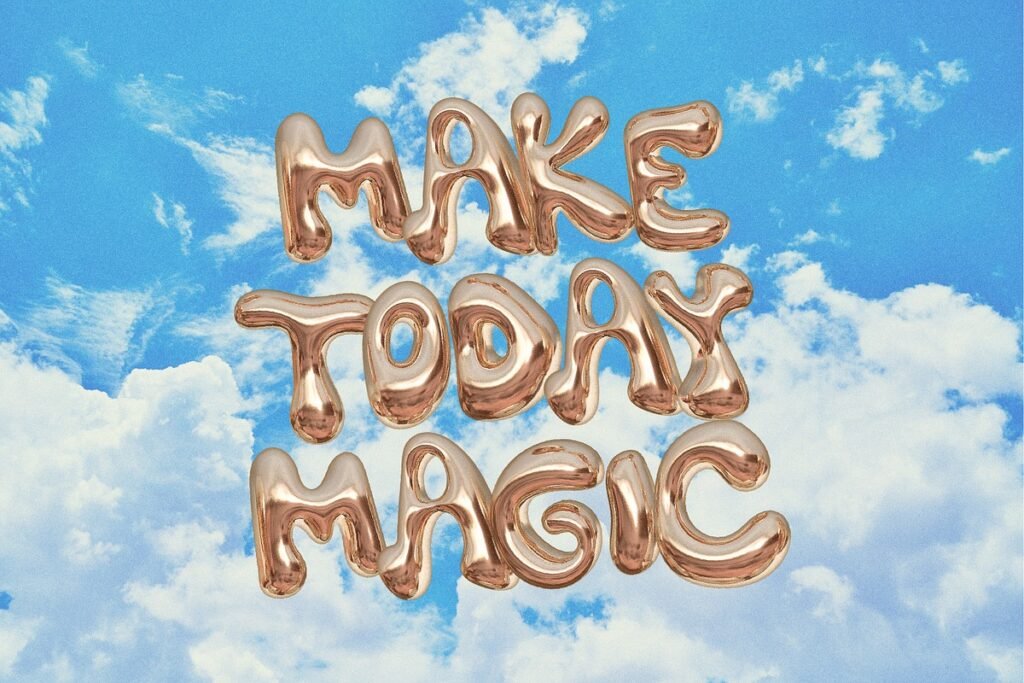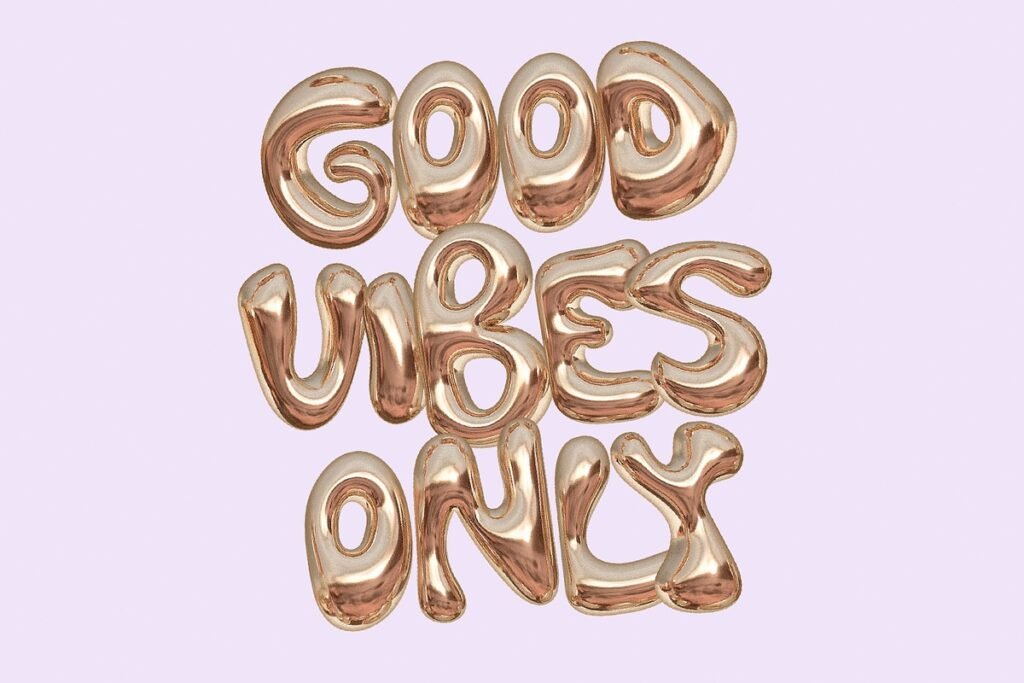
Say hello to BLING! A brazen gold Bling a Gold Balloon Svg Font ready to turn heads 🙂 SVG fonts are rasterised bitmap-based image fonts – compatible only with Photoshop CC 2017, Illustrator CC 2018, or Procreate 4.3 (or newer).